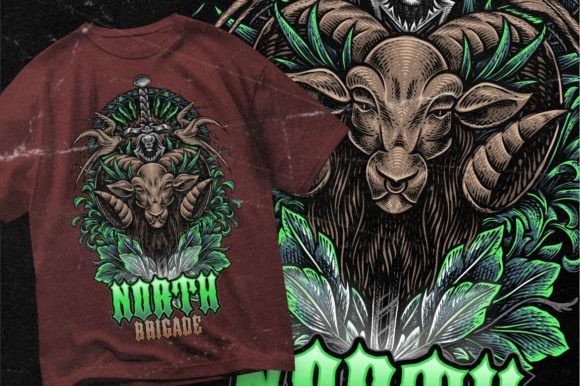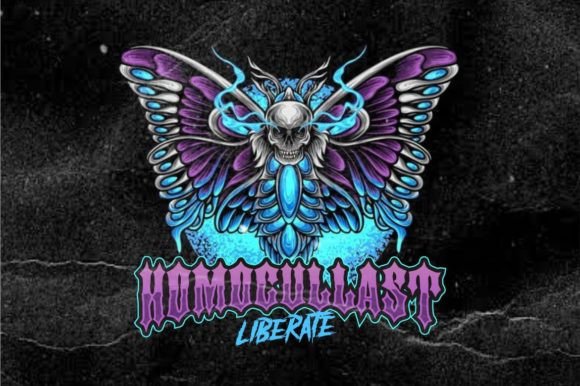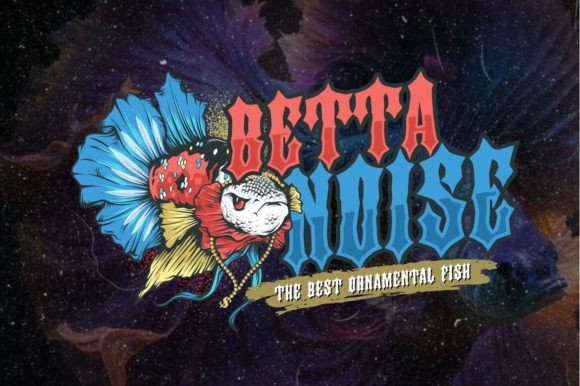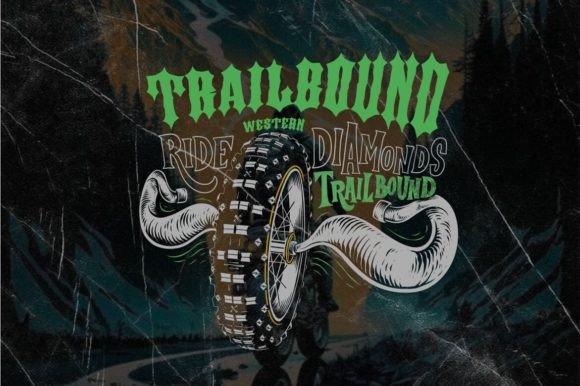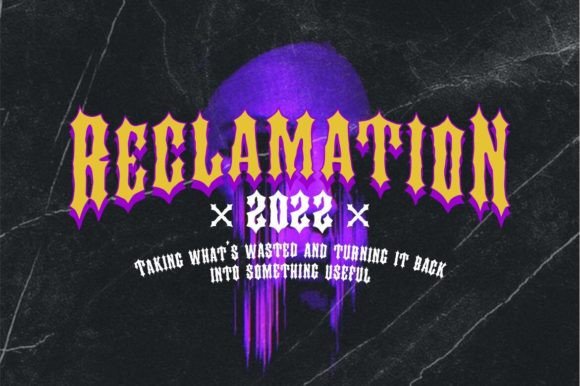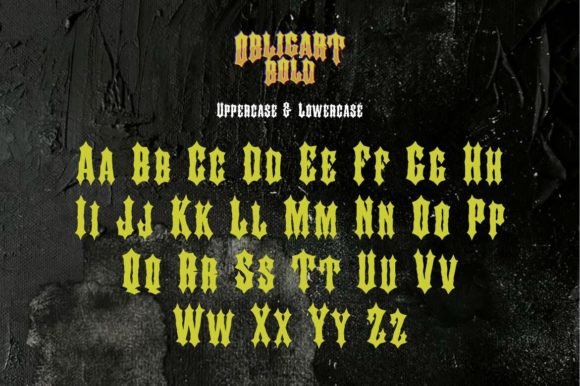
Introduction to Obligart Bold Font
You’re sitting in front of your design software, staring at a blank canvas, and suddenly, the perfect font pops into your head. It’s bold, edgy, and screams creativity. For designers, this moment is pure magic. And, for those looking to add a touch of urban flair to their next project, we’ve got just the thing – Obligart Bold Font.
This striking typeface draws inspiration from the vibrant world of tattoo letters, chicano culture, and urban street art. With its high-quality design and transparent background, Obligart Bold Font is perfect for adding a bold statement to your creative project. Whether you’re working on a poster, t-shirt, or logo, this font is sure to make your design stand out.
Key Features of Obligart Bold Font
- High-quality, professional font ideal for creative projects and design resources.
- Features a bold and modern design, perfect for adding a touch of sophistication to any project or presentation.
- Designed with a high level of detail and precision, ensuring a crisp and clear display at various resolutions and sizes.
Honest Review: Obligart Bold Font
One of the standout features of the Obligart Bold Font is its versatility. It works well in a variety of applications, from headings to body text, and can be paired with a transparent background for a clean and modern look. ✨
Here are some of the key features that make the Obligart Bold Font a high-quality design resource:
- Highly legible and readable
- Works well in both print and digital formats
- It’s not ideal for very small text sizes ⚠️
- The font family is relatively small, with only a few weights to choose from
Tips for Getting the Most Out of Obligart Bold Font
Experiment with different font sizes and combinations to create visually appealing designs. Use the font in conjunction with other design resources to add depth and interest to your projects.
Obligart Bold Font is perfect for headlines, titles, and other text elements where a bold and eye-catching font is needed. It’s also great for creating logos, icons, and other design elements where a high-quality font is required.